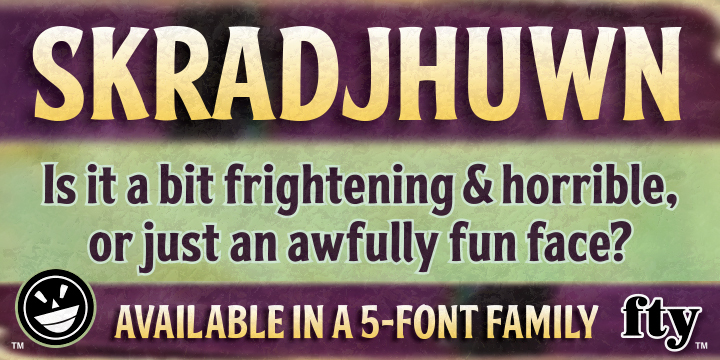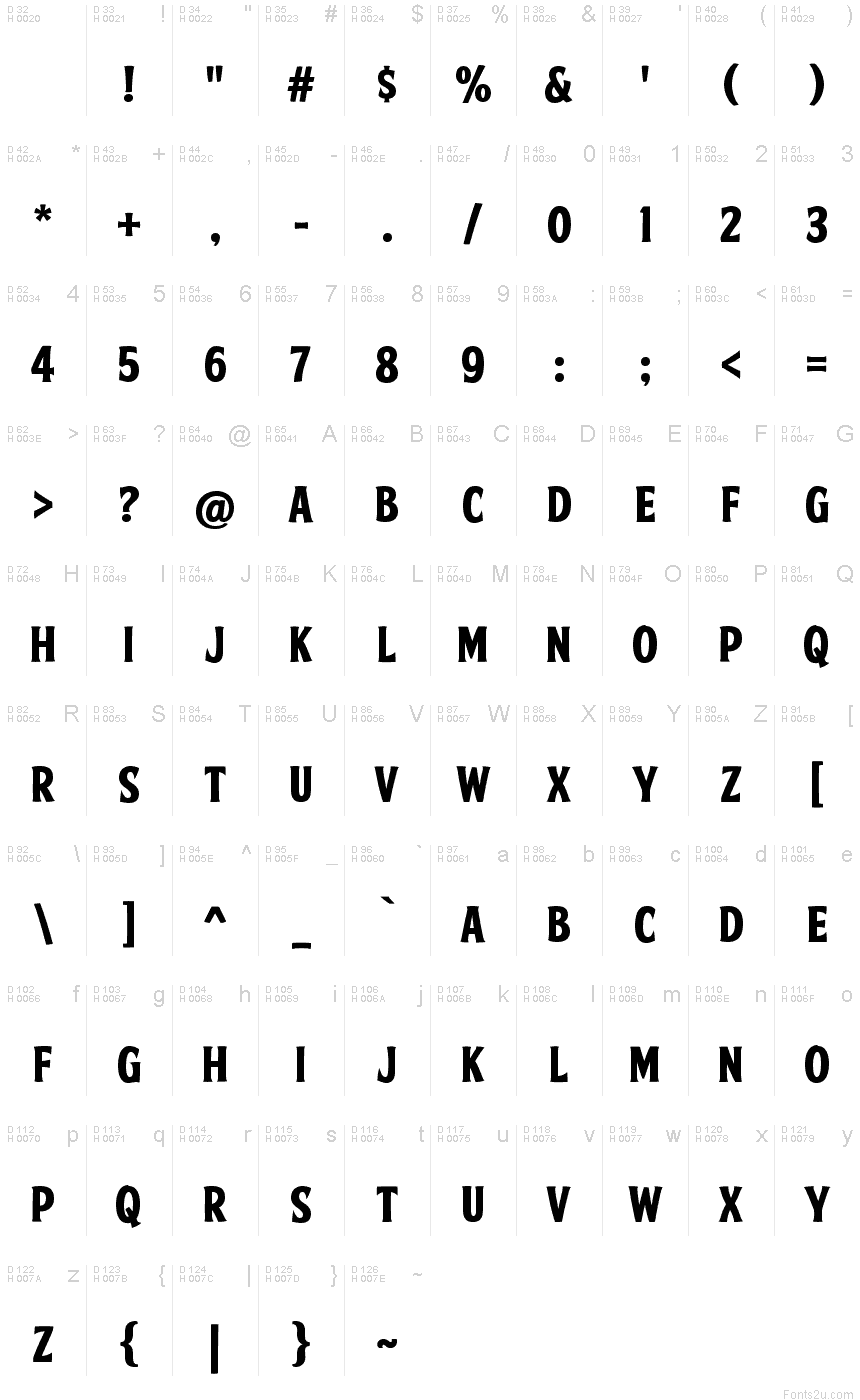
FTY SKRADJHUWN NCV 3
A fun face with a nice bounce, the freeware version of SKRADJHUWN arrives in 3 flavors to fill all your layout needs. For even more variety and a complete range of lowercase letters, get your hands on the commercial version of this family. It will meet all your weight requirements for those graphics that need to be lean and clean.